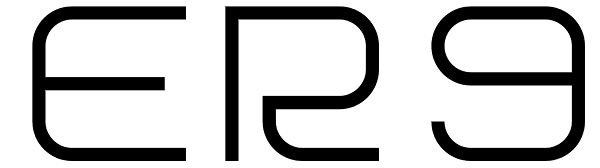
ER9
Based on a rounded square, ER9 is a very versatile futuristic feeling typeface. Its monoline design allows for easy customization for headlines and logos.